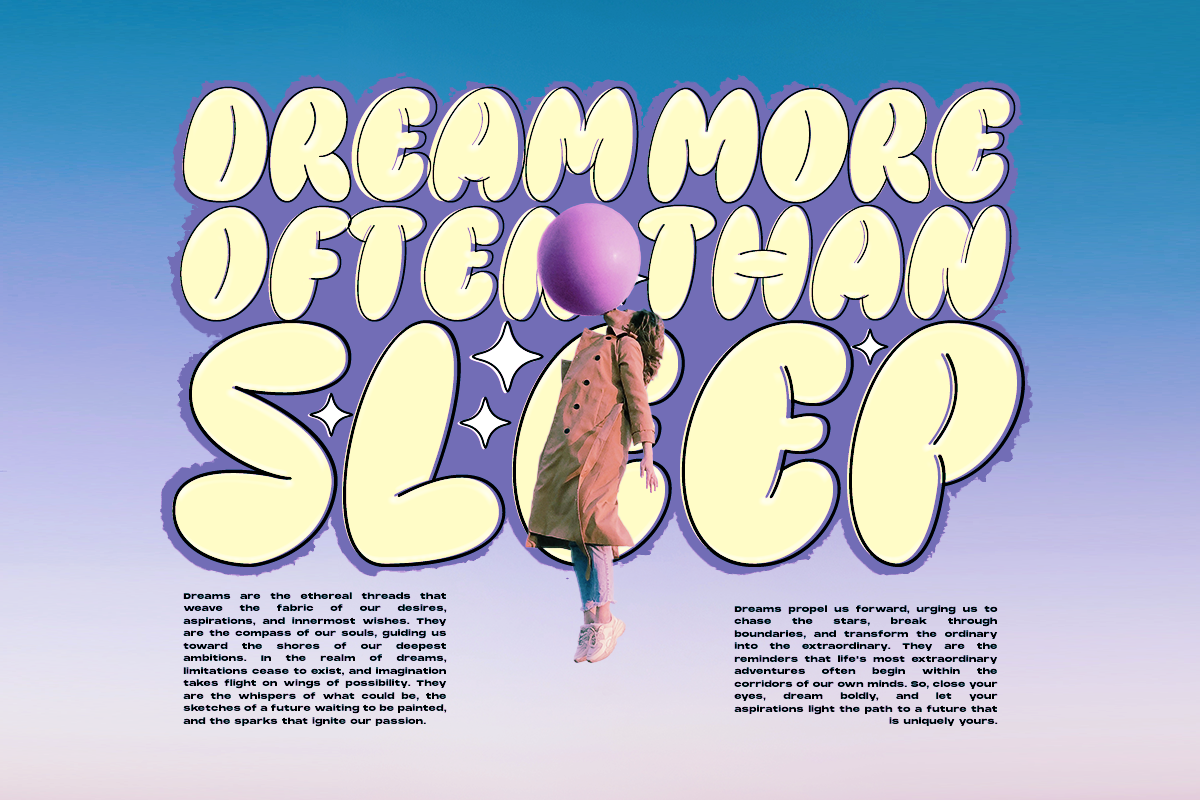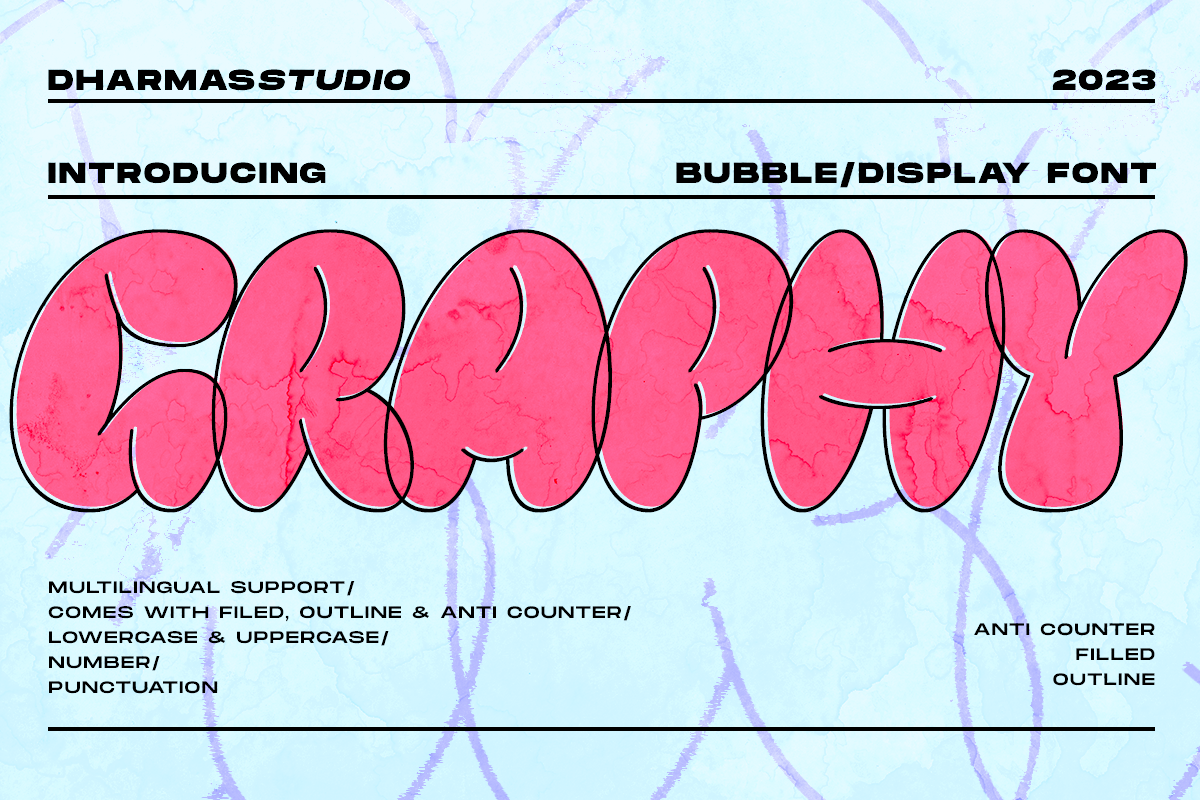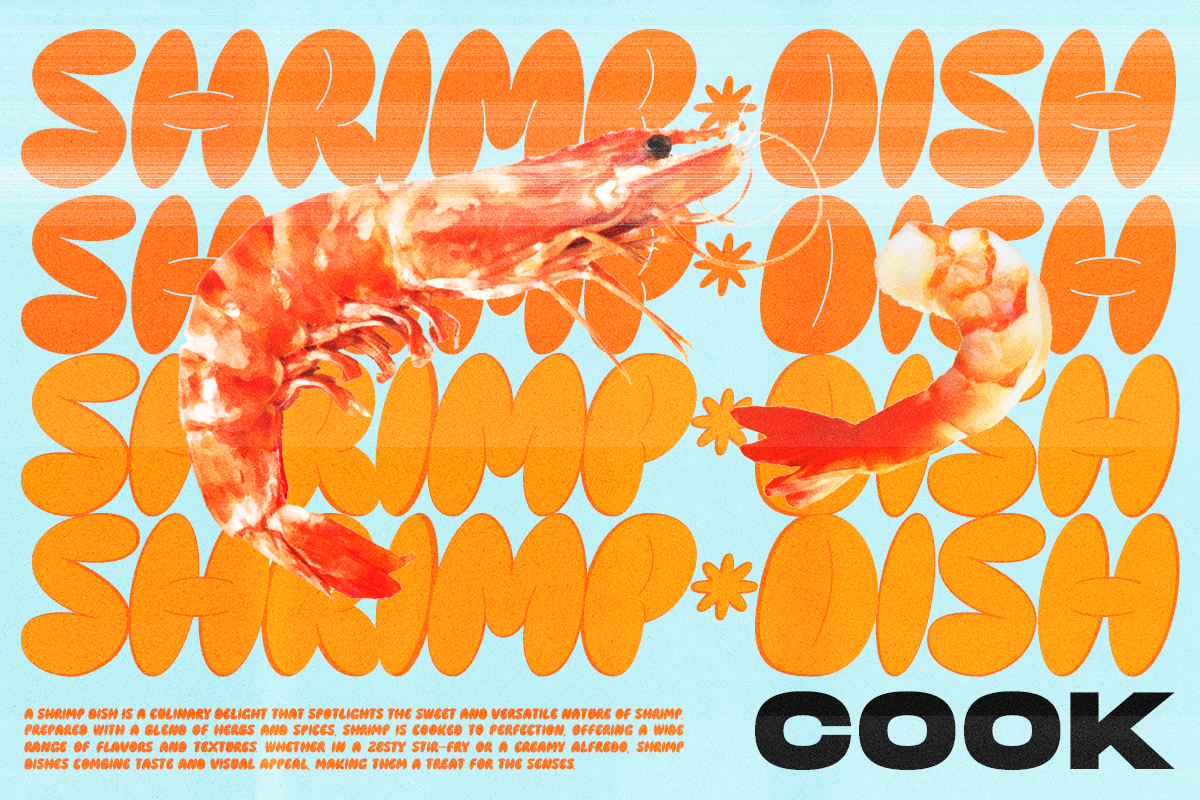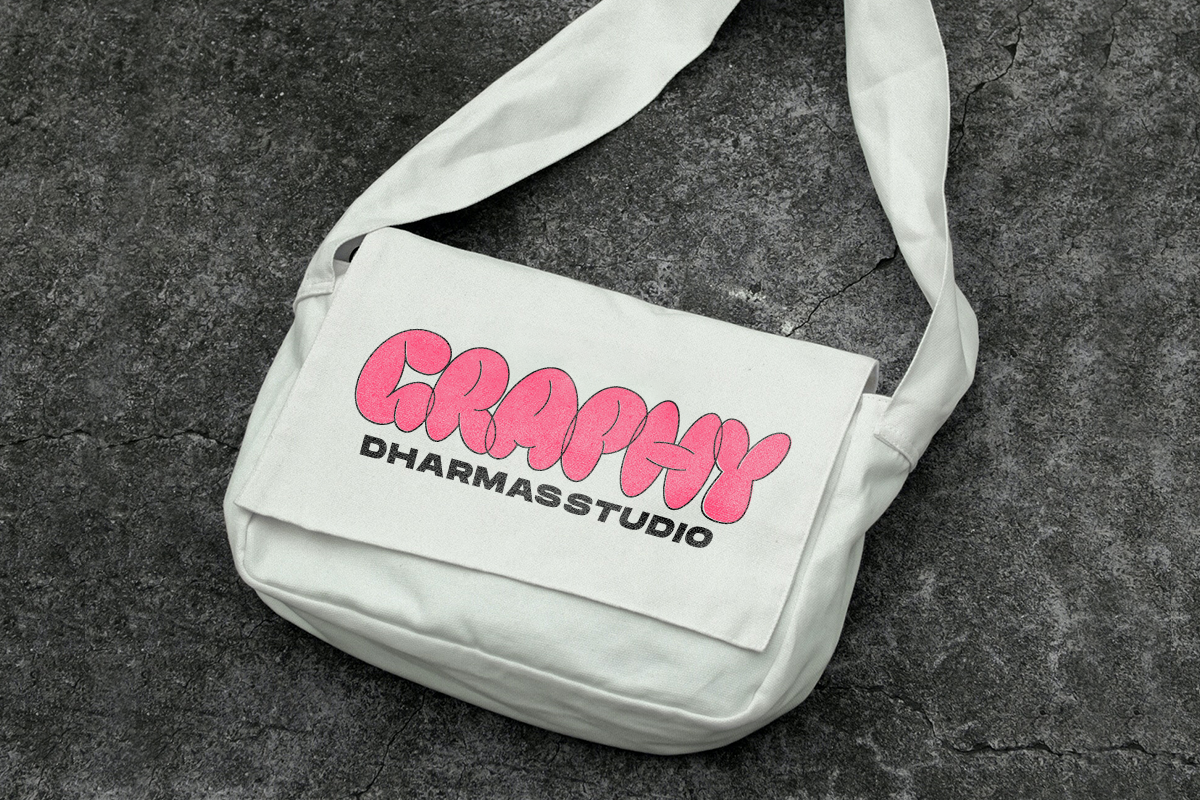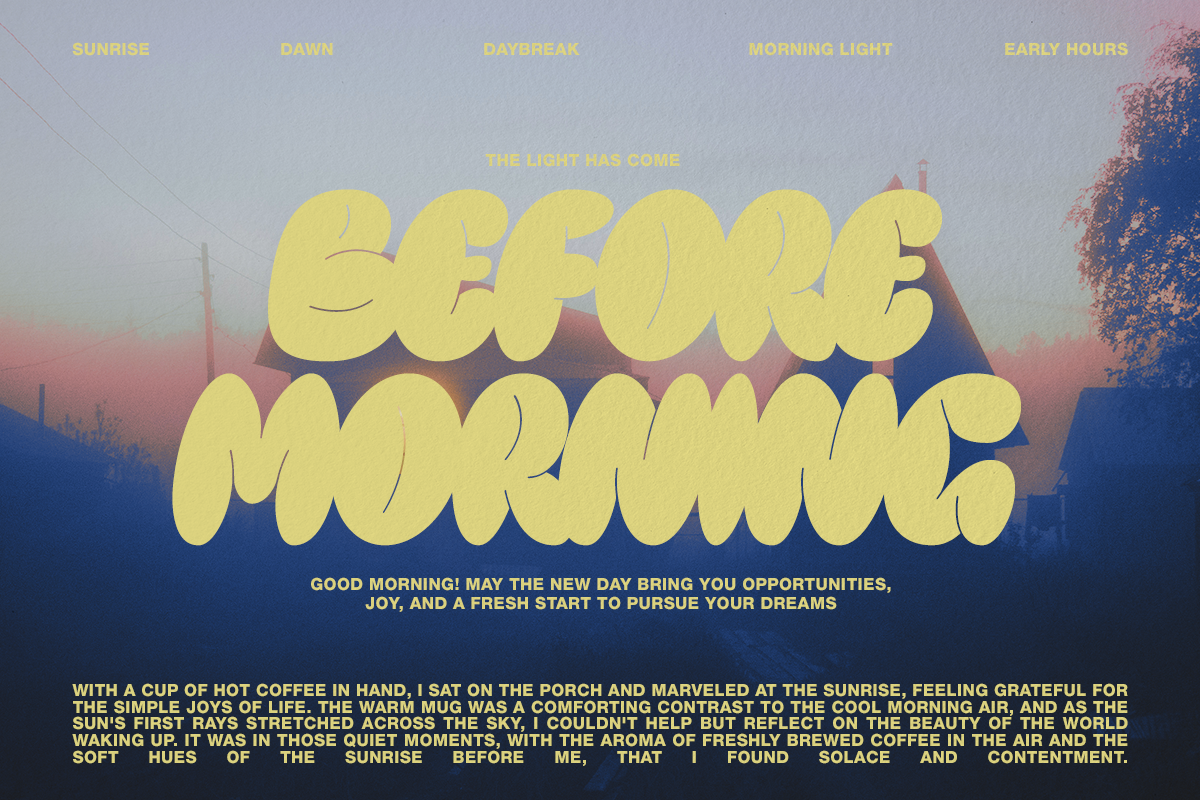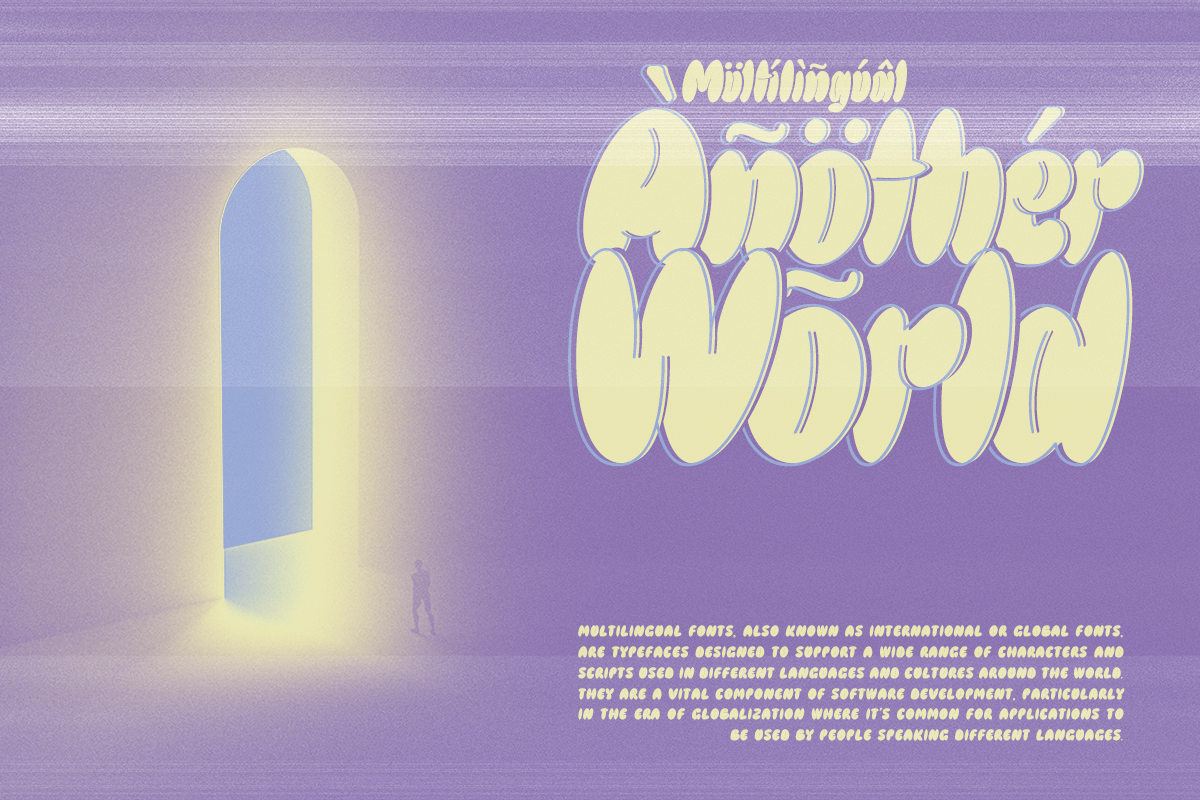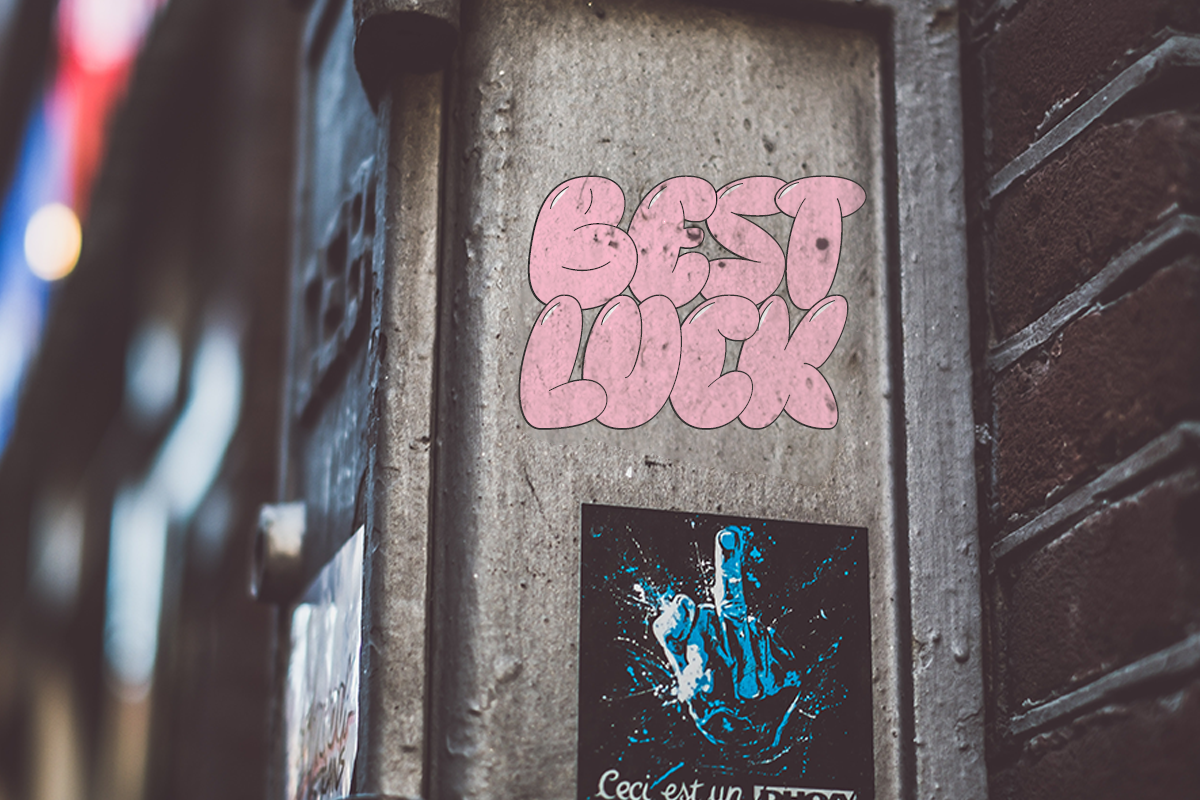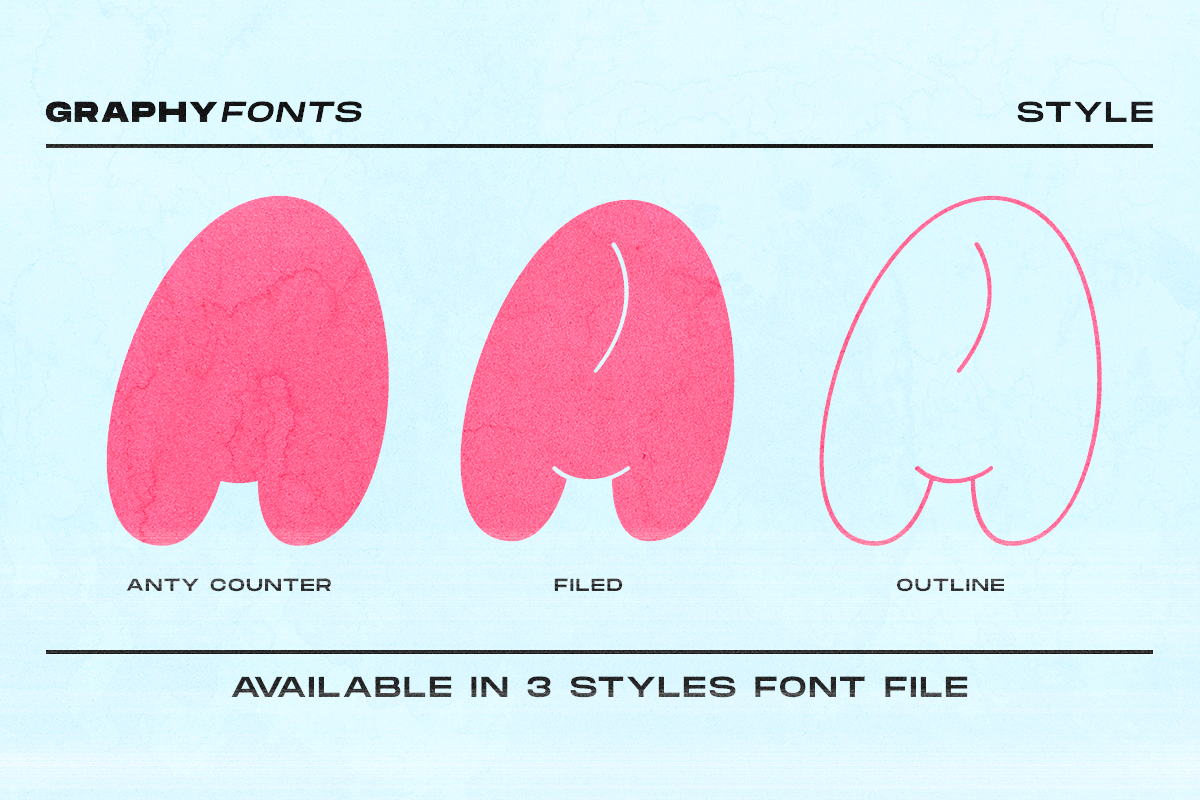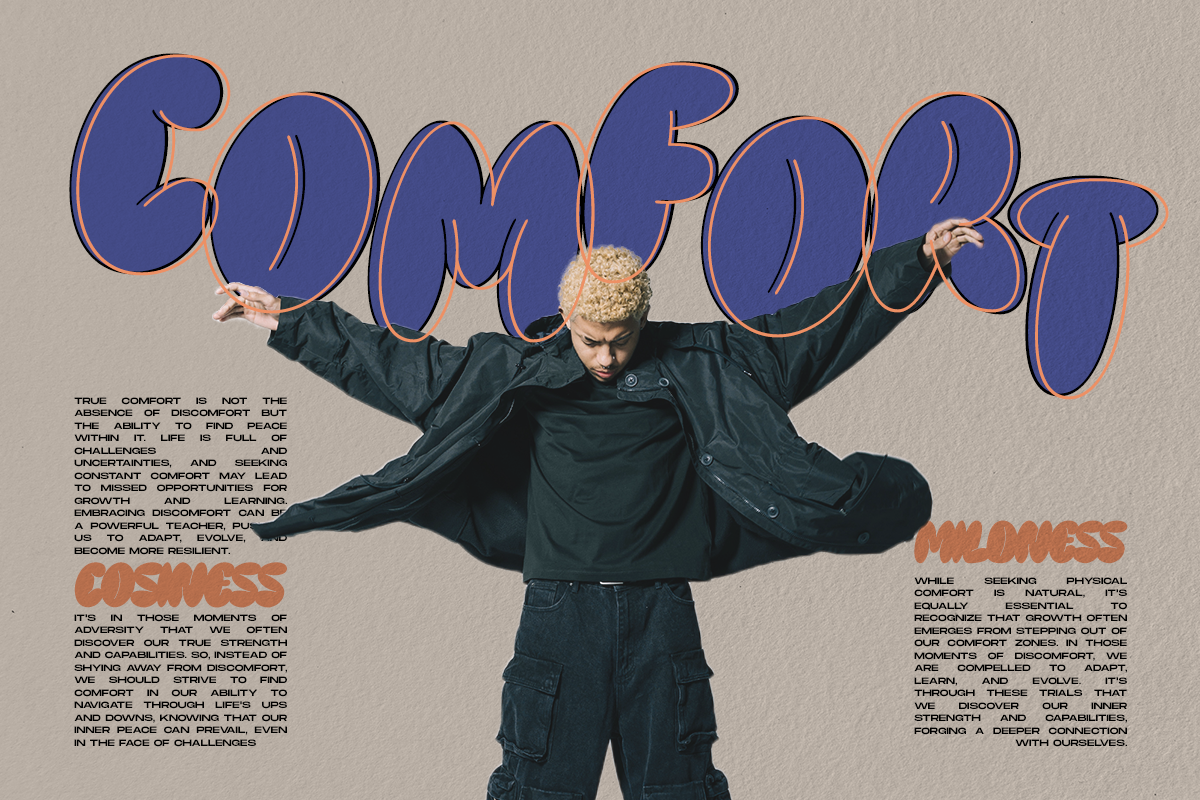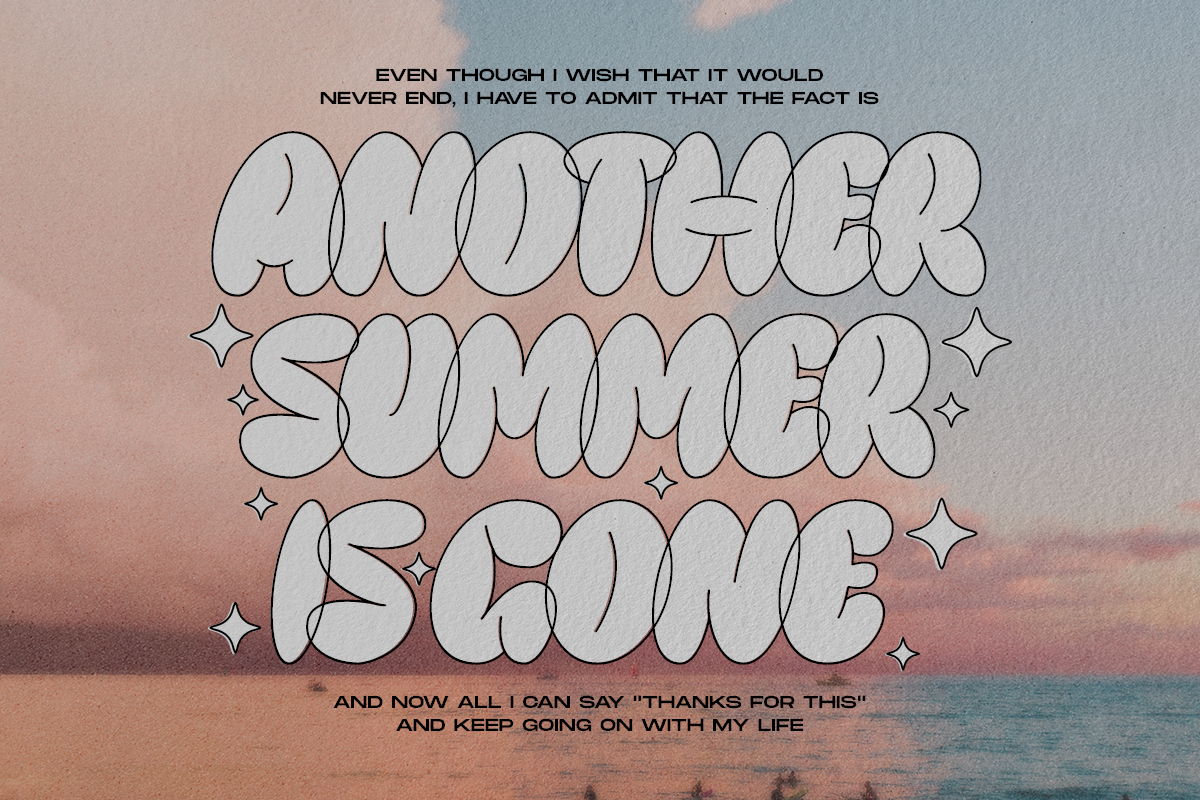
Graphy - Bubble Family Font
Introducing Graphy, the font that fuses the energetic spirit of street art and the trendsetting vibes of y2k culture. This unique bubble font is inspired by graffiti and street art, infused with a modern layout that is sure to stand out
This unique typeface offers three distinct styles: Filled, Anti Counter, and Outline, whether you're working on logos, branding, or social media graphics, Graphy adds an urban, contemporary edge that's sure to make your designs stand out.
Embrace the creative fusion of graffiti and modern layout with Graphy!
- Has 3 style: Filled, Anti Counter, and Outline
- Unique Letterforms